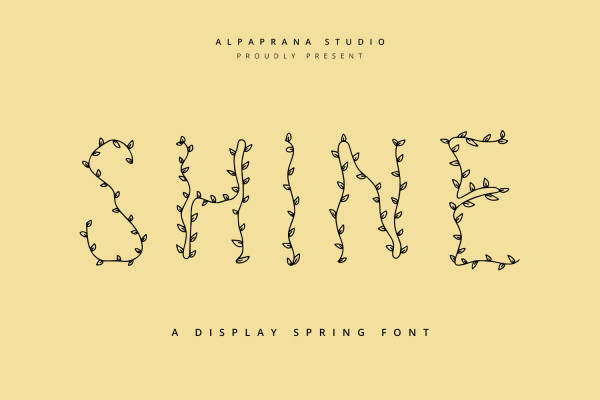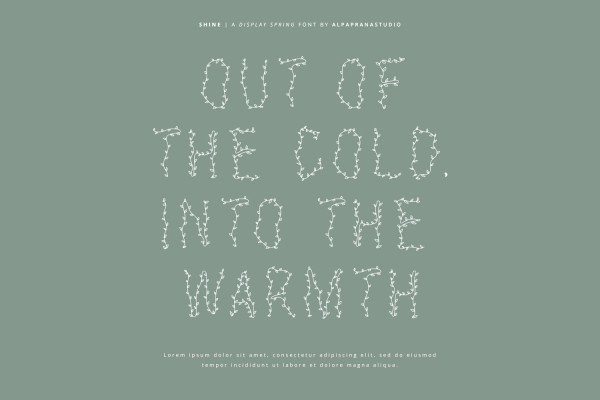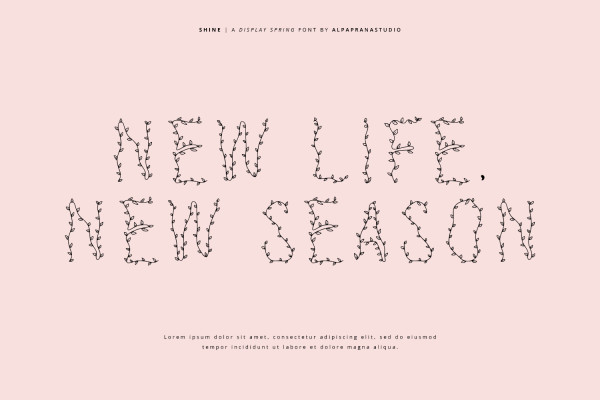
Shine Typeface
Shine Typeface is a decorative display font with cute and modern feels. It will be perfectly used for Branding, Logo Design, Lettering, Logotype, Clothing, Poster, magazine, packaging, posters, shopping bags, t-shirts, book covers, photography, special events and other design project.